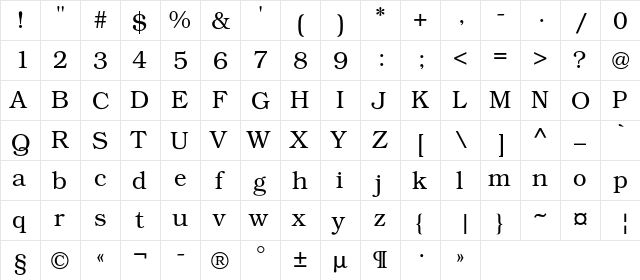
BookmanC Regular Font Preview
BookmanC Regular
BookmanC Regular Font Details
Design Context for BookmanC Typeface
BookmanC is a composed and adaptable typeface that performs quietly and consistently across a wide range of design contexts.